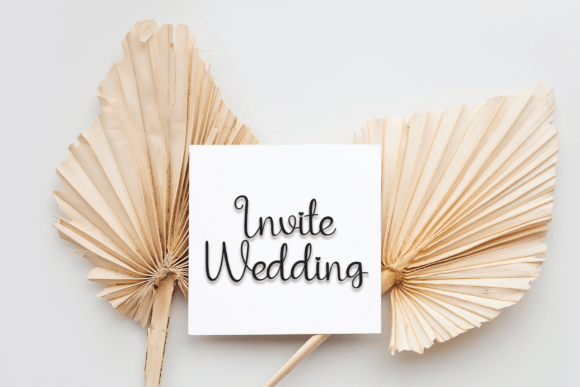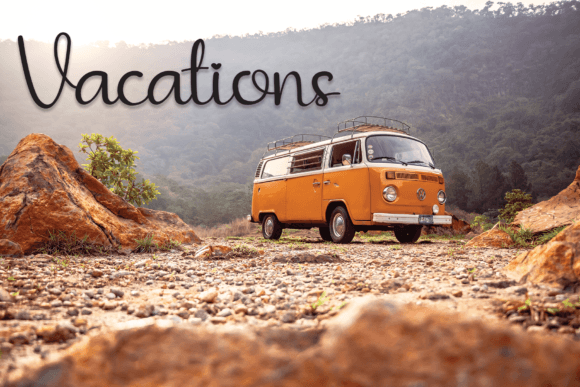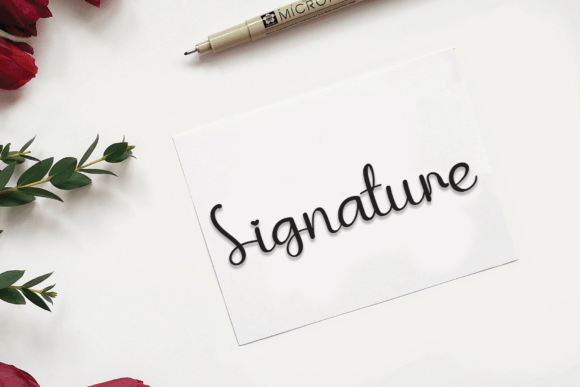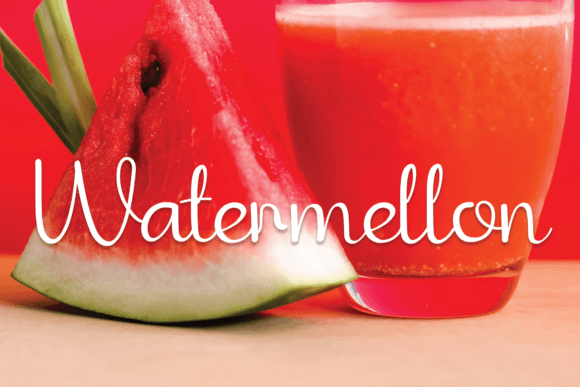
Have you ever sat down at your desk, surrounded by scraps of paper, colored pencils, and a blank canvas, feeling like the perfect design is just waiting to be born? We’ve all been there, searching for that one special font that brings our ideas to life. For many designers, that font is Alive Font – a fun and friendly handwritten font that’s perfect for a wide range of creative projects.
Whether you’re crafting handmade cards, designing digital presentations, or simply looking for a unique touch to elevate your next project, Alive Font is sure to deliver. Its friendly, approachable style makes it a valuable addition to any designer’s toolkit, offering endless possibilities for expression and creativity.
With its versatility and charm, it’s no wonder Alive Font has become a favorite among designers and crafters alike. In this article, we’ll explore the many uses and benefits of this beloved font, and show you how to get the most out of it in your next creative project.
Alive Font Key Features
- Unique Characteristics: Alive Font features a unique blend of modern and vintage elements, making it an ideal choice for designers seeking a distinctive and eye-catching aesthetic.
- Weight and Style Options: The font comes in a range of weights and styles, from Light to Extra Bold, allowing designers to achieve the desired level of emphasis and visual impact.
Alive Font Review
As a designer, I was excited to dive into the Alive Font and see what it had to offer. ✨ One of the first things that caught my eye was the font’s high level of expressiveness and versatility. It’s perfect for creating bold, eye-catching headlines and can also be used for body text, depending on the project.
Here are some of the key features that I think work well:
- High expressiveness and versatility
- Perfect for bold, eye-catching headlines
- Works well for body text in certain projects
- Wide range of character variations for added depth
However, there are a few limitations that I think are worth noting ⚠️:
- Limited language support (may not be ideal for projects with multiple languages)
- Not suitable for projects requiring a more formal tone
- Some characters may not render correctly in certain fonts or software
Overall, I think the Alive Font is a great choice for projects that require a bold, expressive look. While it may not be suitable for every project, it’s definitely worth considering for those that need a little extra pizzazz. With a bit of careful planning and consideration, I think this font can be a real showstopper.
Tips for Getting the Most Out of Alive Font
Use Alive Font to create visually appealing and engaging designs. Experiment with different font sizes, colors, and alignments to achieve the desired effect.
Alive Font is suitable for a variety of applications, including:
- Business presentations and reports
- Wedding invitations and event materials
- Social media graphics and posts